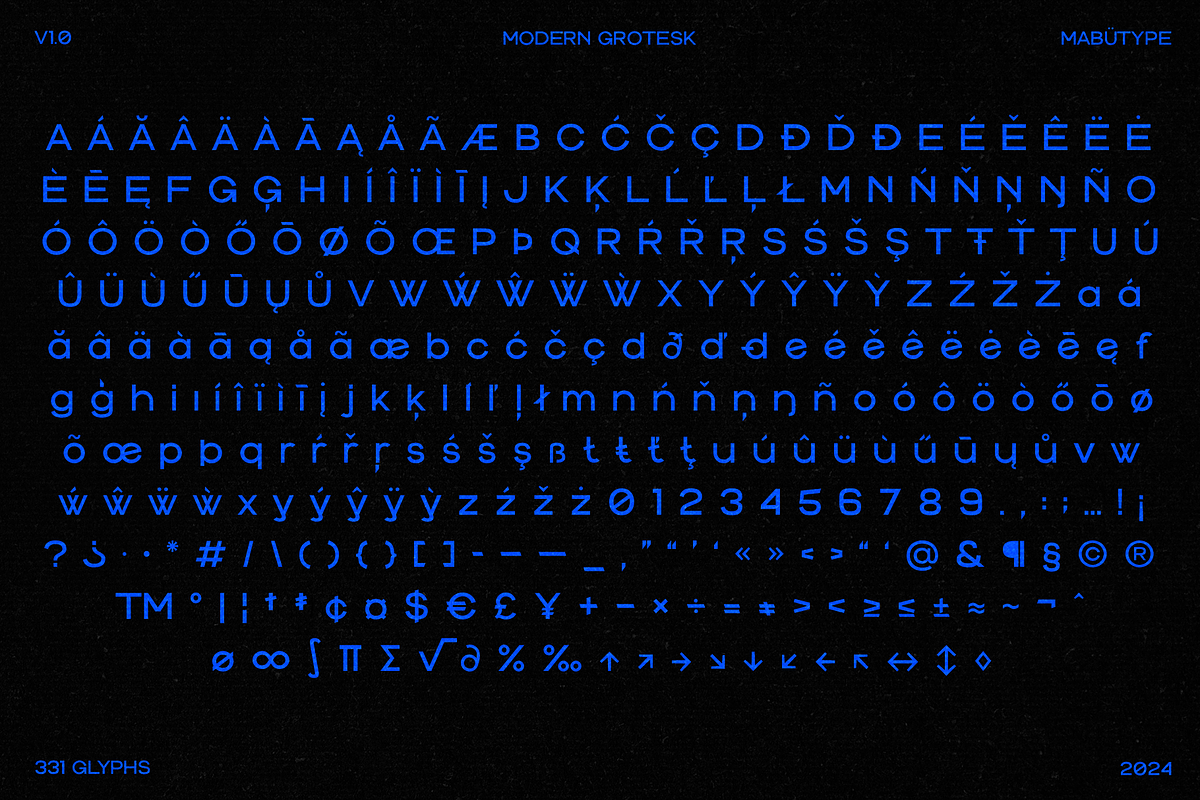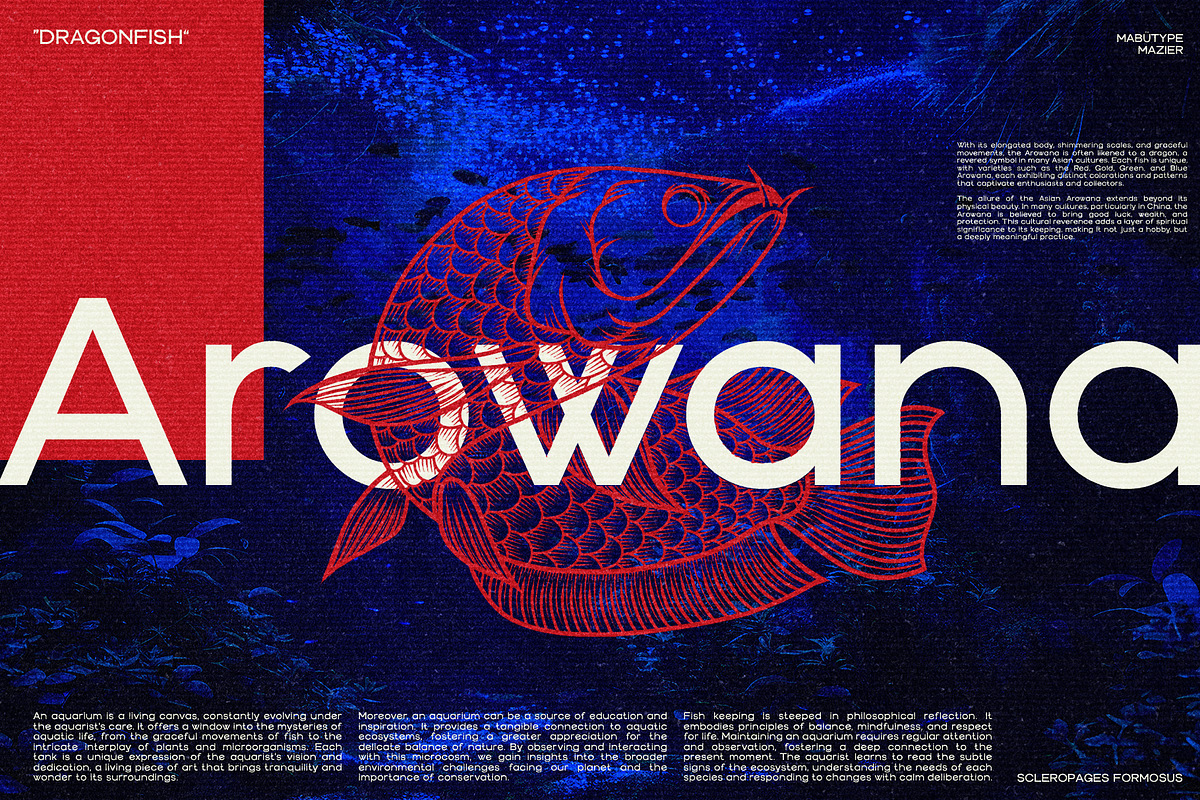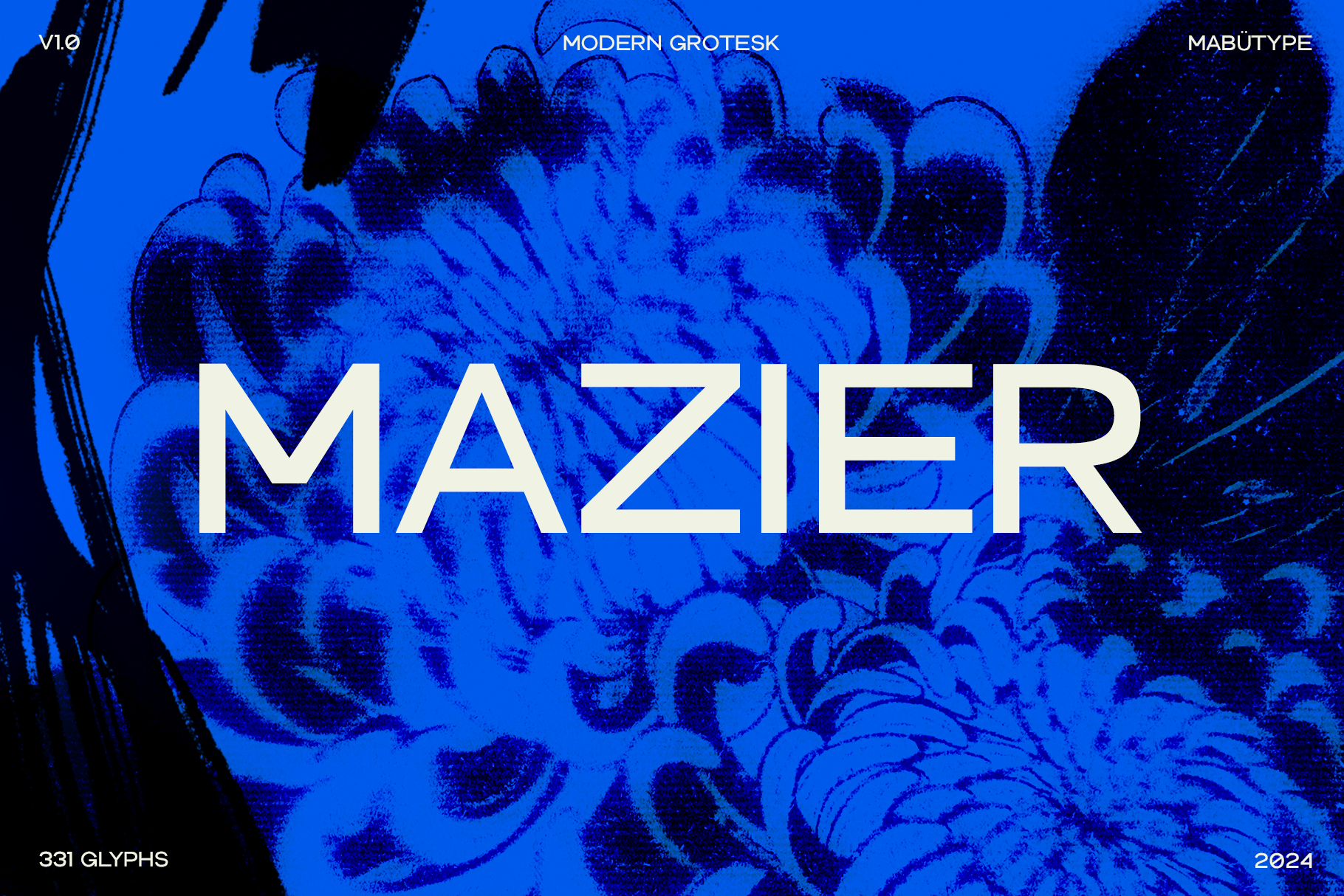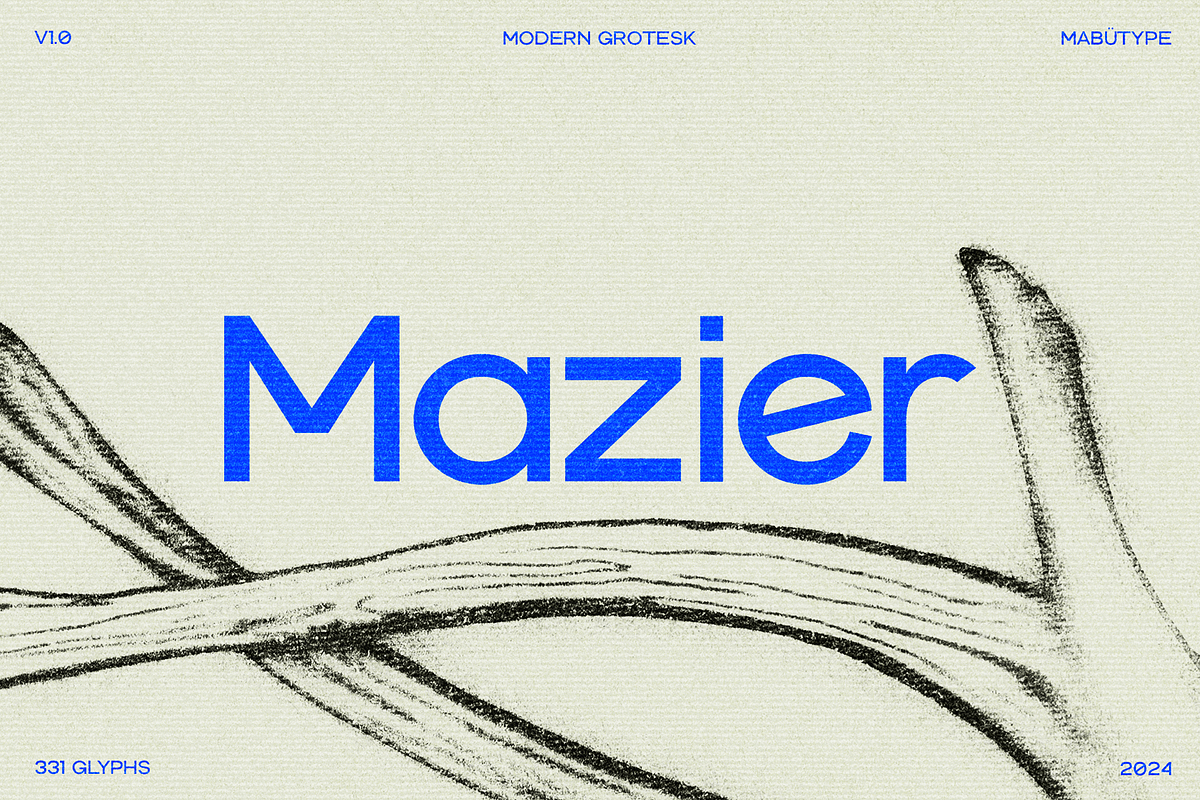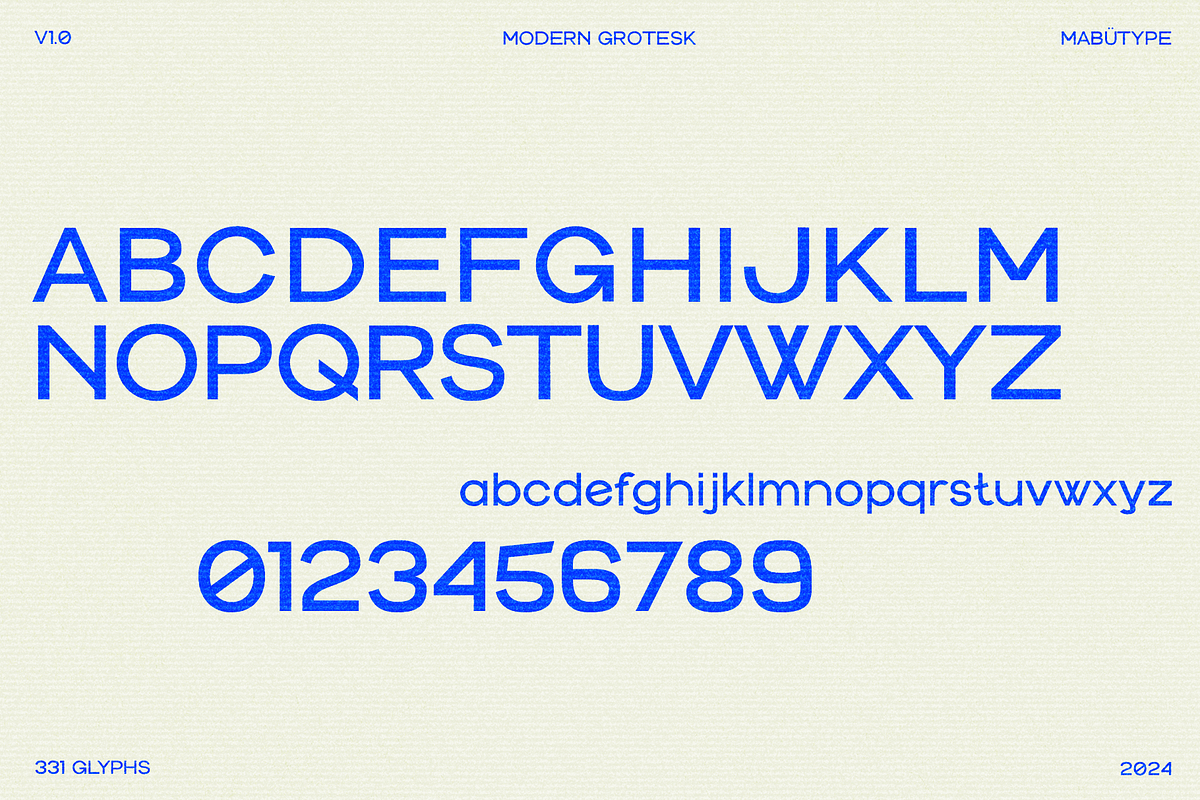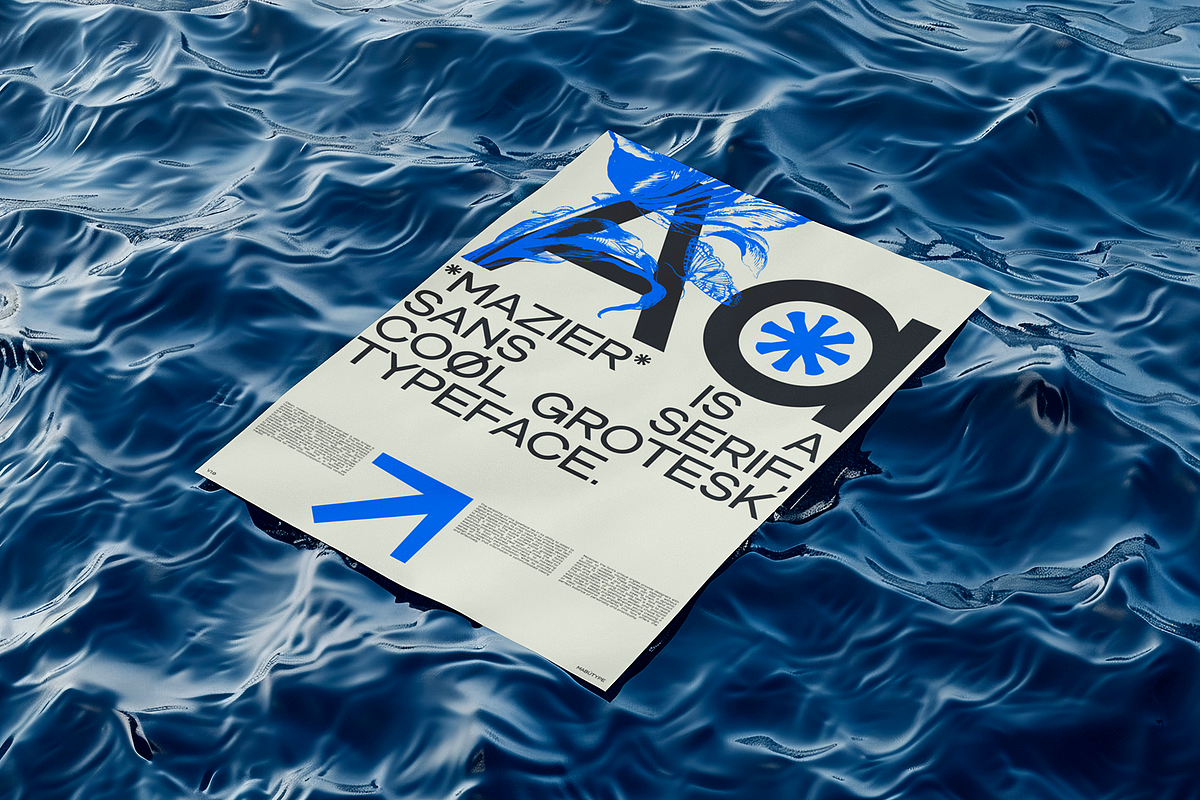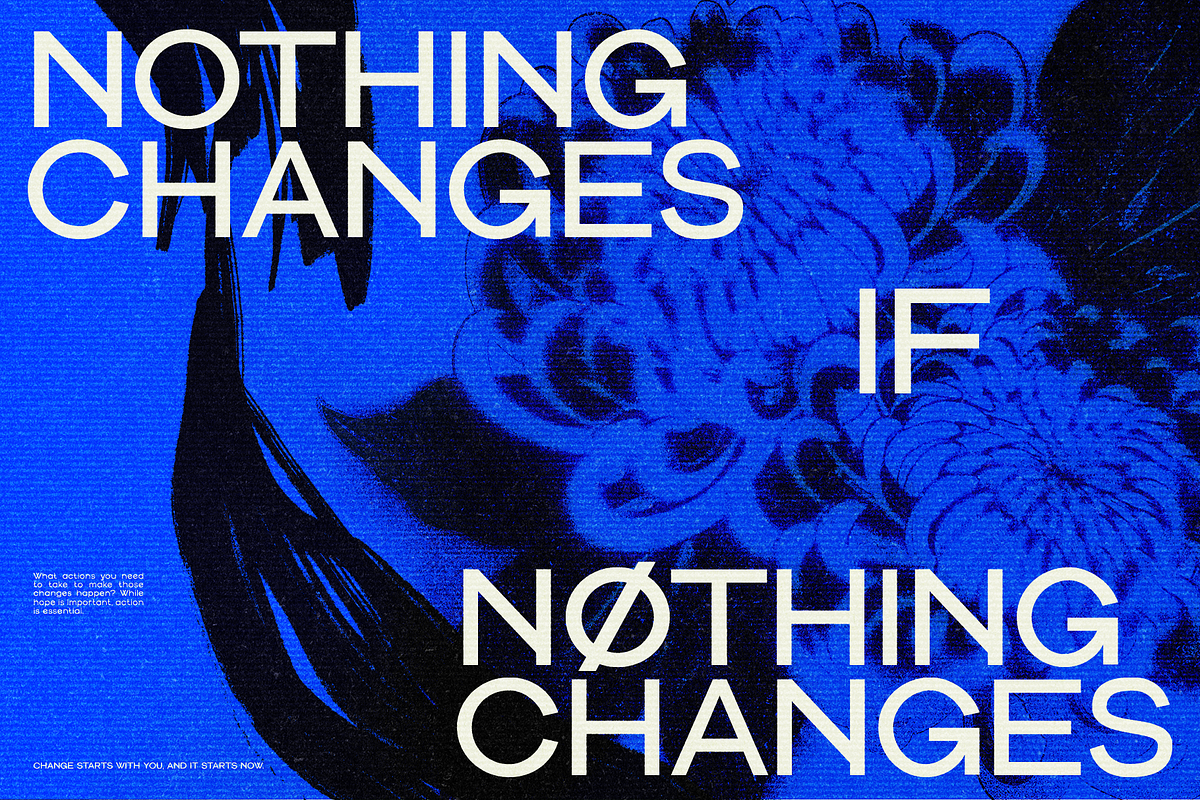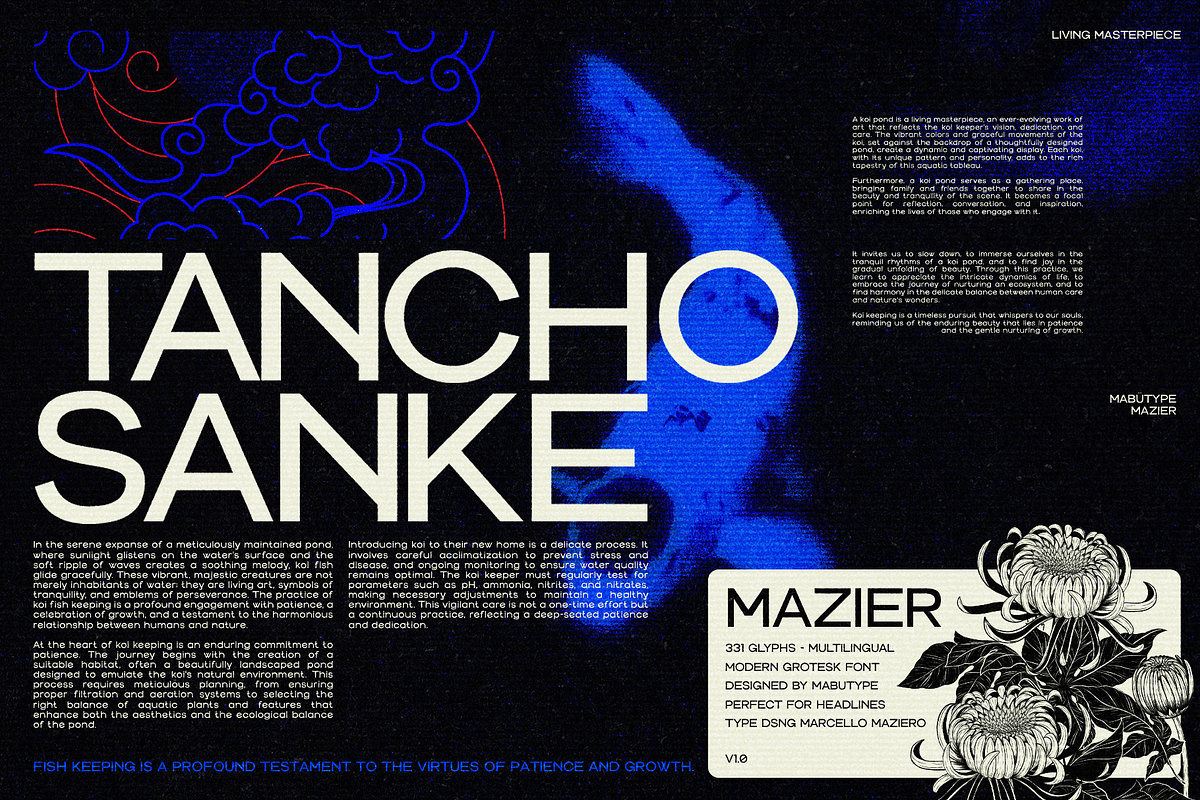
Mazier - Display Typeface
Mazier is a sans serif, cool grotesk typeface. With over 300 glyphs, it has multilinguistic support and unique angles full of personality.